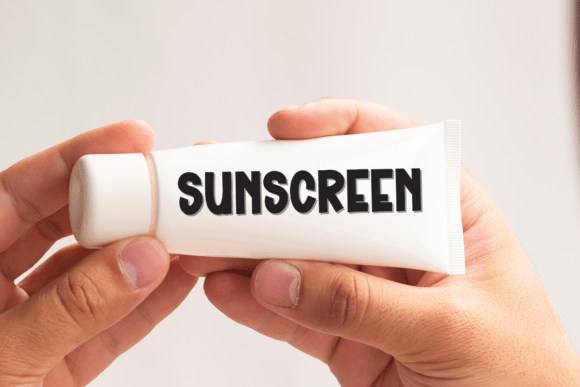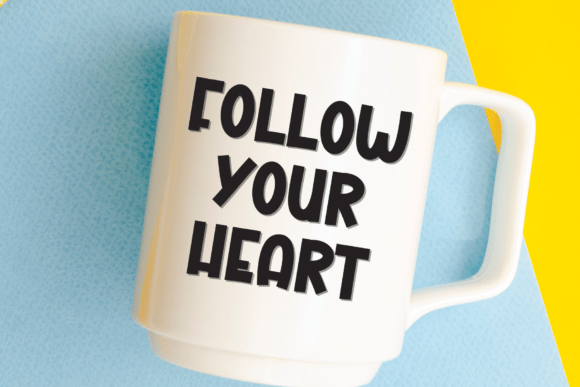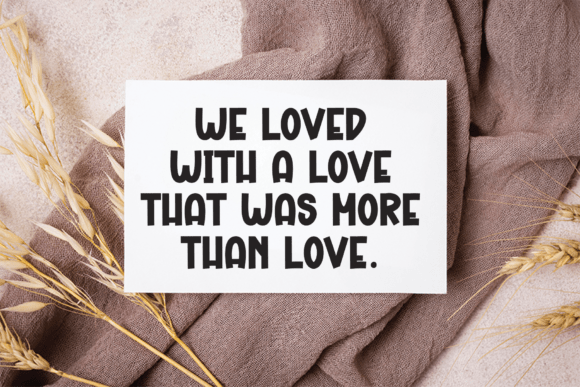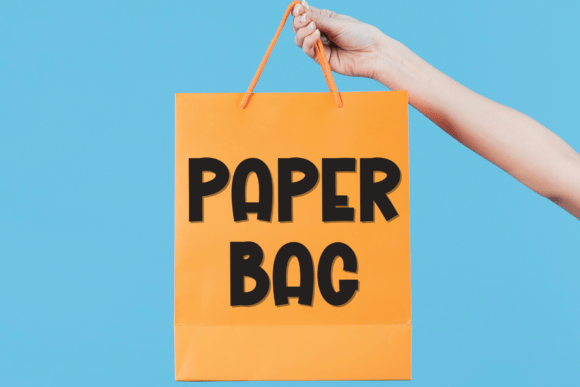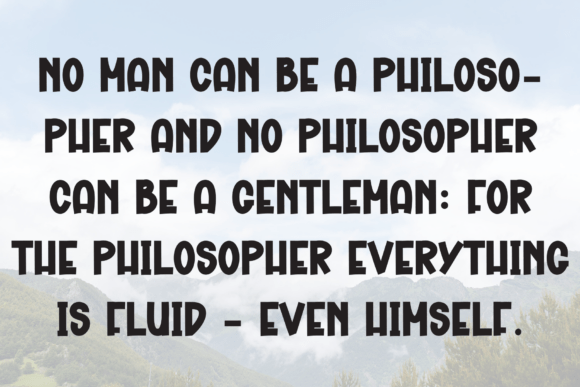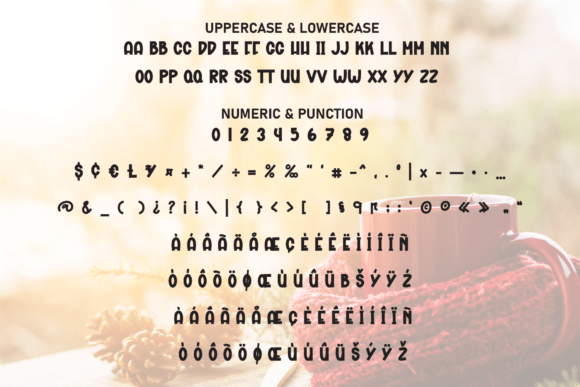
Introduction to Season Charming Font
Experience the charm of our affectionately crafted handwritten display font – a blend of delightful sweetness and amicability.
With its adorable and lively design, this font serves as the perfect component to enhance your wedding invitations, cards, or any other creations seeking a sprinkle of fun With this distinctive font, infuse your designs with an unmatched playful allure that guarantees to charm and captivate.